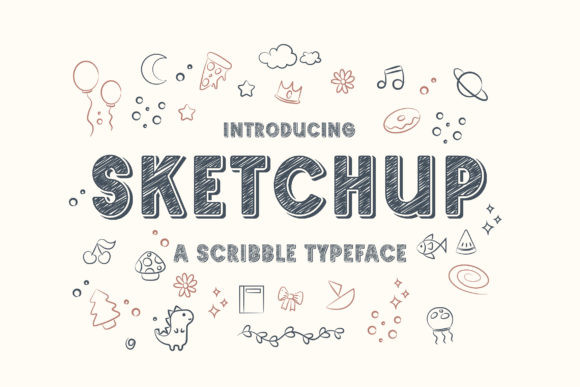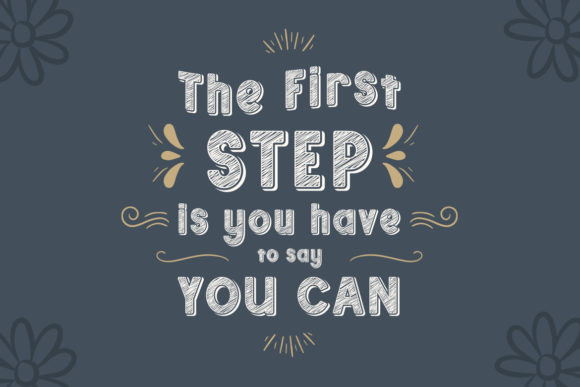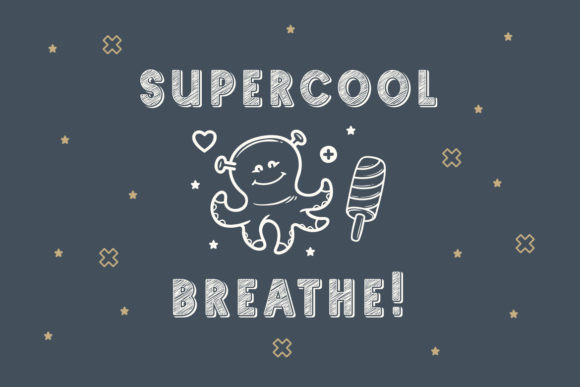
Sketchup Font
Skecthup is a bold and thick lettered display font. Whether you’re using it for crafting, digital designing, presentations or greeting cards making, it’s perfect!